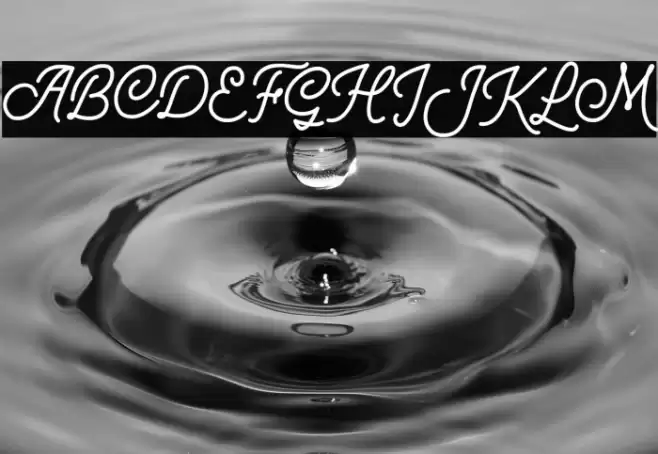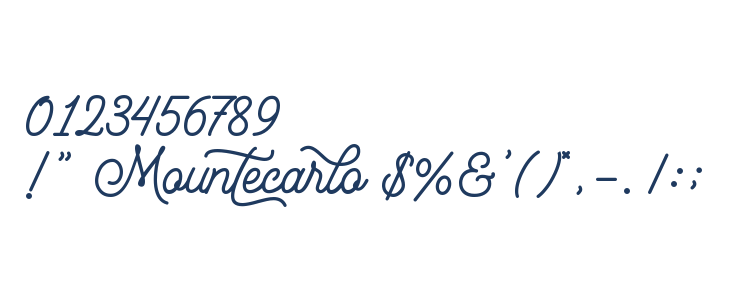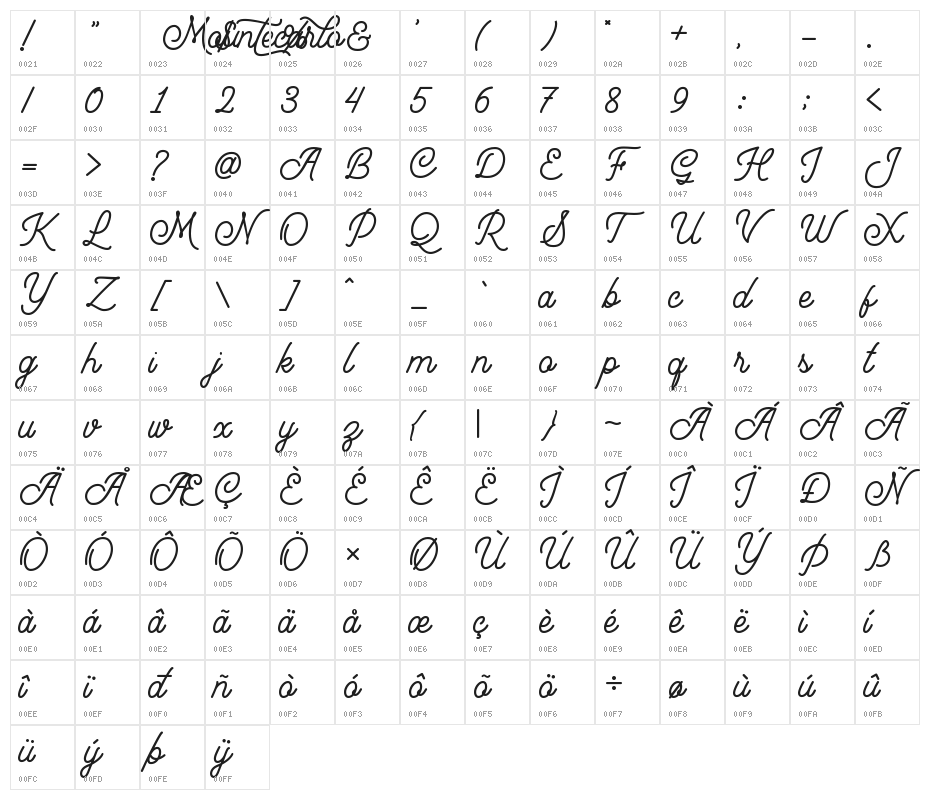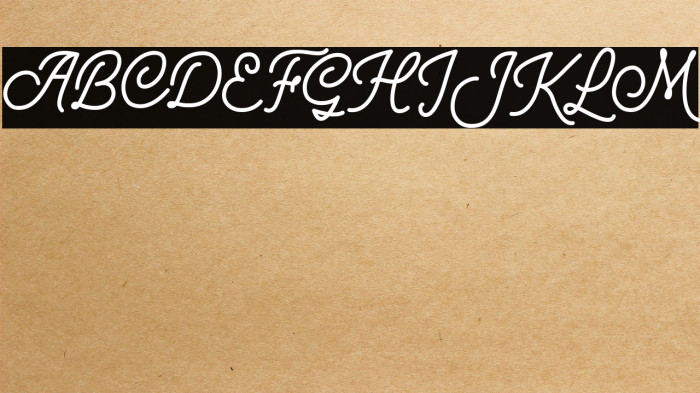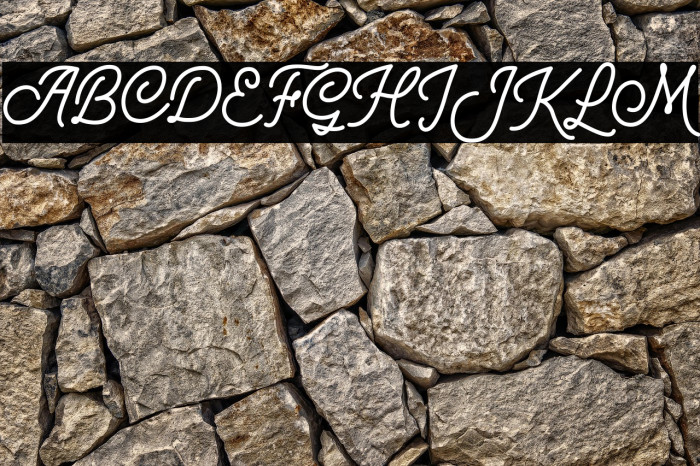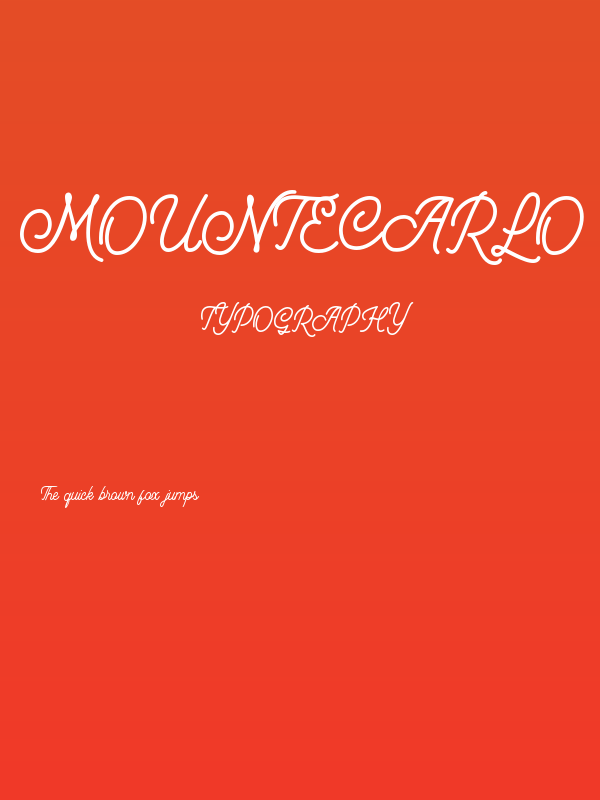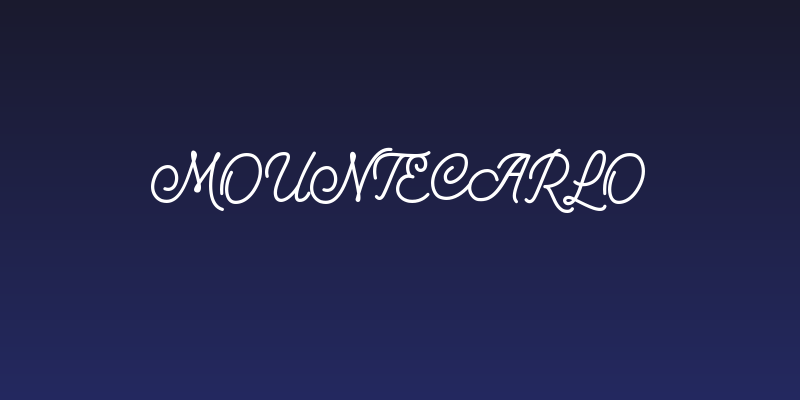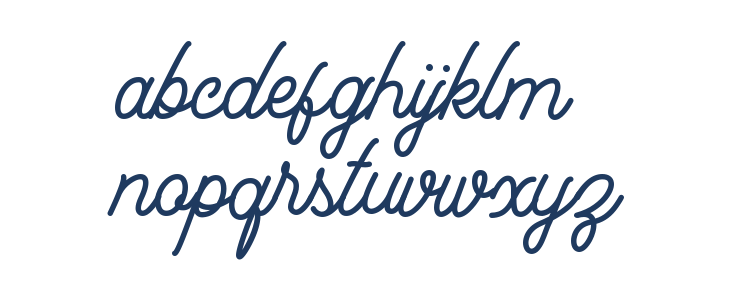
Mountecarlo Font
Mountecarlo Description
This elegant script font features a flowing, cursive style with smooth, connected strokes that evoke a sense of sophistication and grace. The uppercase letters are ornate and slightly larger than the lowercase, which are more rounded and fluid. The numerals maintain the same elegant style, ensuring consistency throughout. Special characters are designed with the same attention to detail, making this font suitable for a variety of decorative purposes. Its overall appearance is both classic and stylish, making it ideal for projects that require a touch of elegance.
A sophisticated script font with flowing, connected strokes from Uncategorized fonts.
- Font: Mountecarlo
- Proposed Projects: Ideal for wedding invitations, elegant branding, greeting cards, and decorative signage.
- Overall Style: Classic
- Use Case: Logos, Invitations, Decorative Text